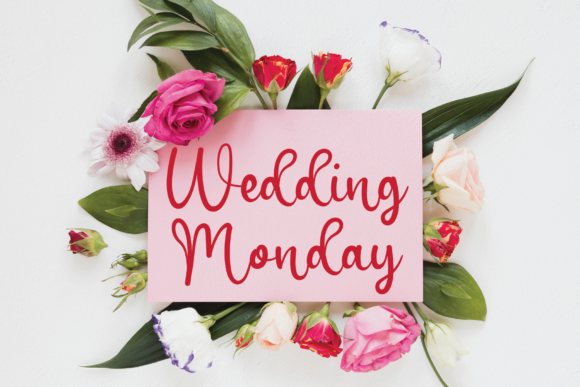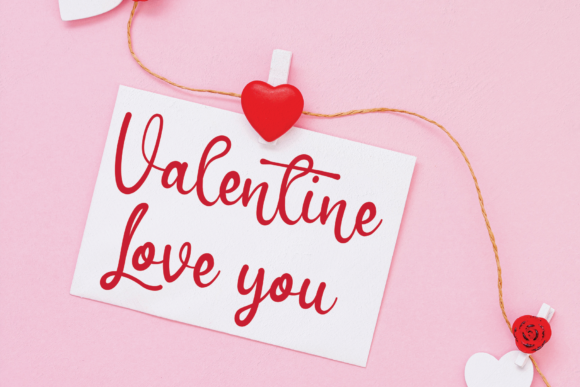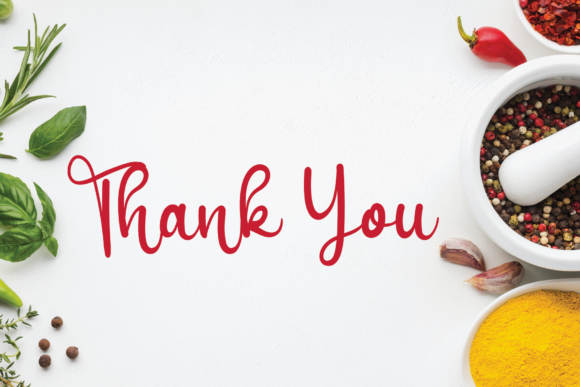
Kupu Kupu Font
About Kupu Kupu Font
Kupu Kupu is a captivating and romantic calligraphy typeface that adds a touch of elegance and whimsy to any design. With its dancing characters and flowing strokes, this font creates a sense of movement and grace, making it a perfect choice for a wide range of creative projects.
The unique feature of Kupu Kupu lies in its characters that beautifully dance along the baseline. This adds a dynamic and playful element to the font, making it visually striking and engaging. Whether you’re designing a logo, a wedding invitation, a heading for a publication, or even a t-shirt design, Kupu Kupu will bring a touch of charm and sophistication to your work.
The versatility of Kupu Kupu allows it to be used in various design contexts. It can be applied to branding materials, giving your logos and labels a romantic and personalized touch. It also shines in wedding invitations and related stationery, creating an atmosphere of romance and elegance. Additionally, Kupu Kupu can be used in editorial design, signage, posters, and badges, adding a touch of flair and creativity to your projects.
The flowing and graceful strokes of Kupu Kupu make it a delightful choice for conveying messages of love, celebration, and beauty. Its calligraphic style evokes a sense of handcrafted artistry and adds a personal and heartfelt touch to your designs.
Whether you’re aiming for a classic and refined look or a more playful and whimsical approach, Kupu Kupu has the flexibility to adapt to your design needs. Its charming and romantic aesthetic makes it suitable for both formal and informal contexts, allowing you to create designs that are both visually appealing and emotionally resonant.
In summary, Kupu Kupu is a romantic and sweet calligraphy typeface that adds a touch of elegance and whimsy to any design. With its dancing characters and flowing strokes, it brings movement and grace to your projects. Its versatility allows it to be used in various design applications, and its romantic aesthetic makes it perfect for conveying messages of love and celebration.